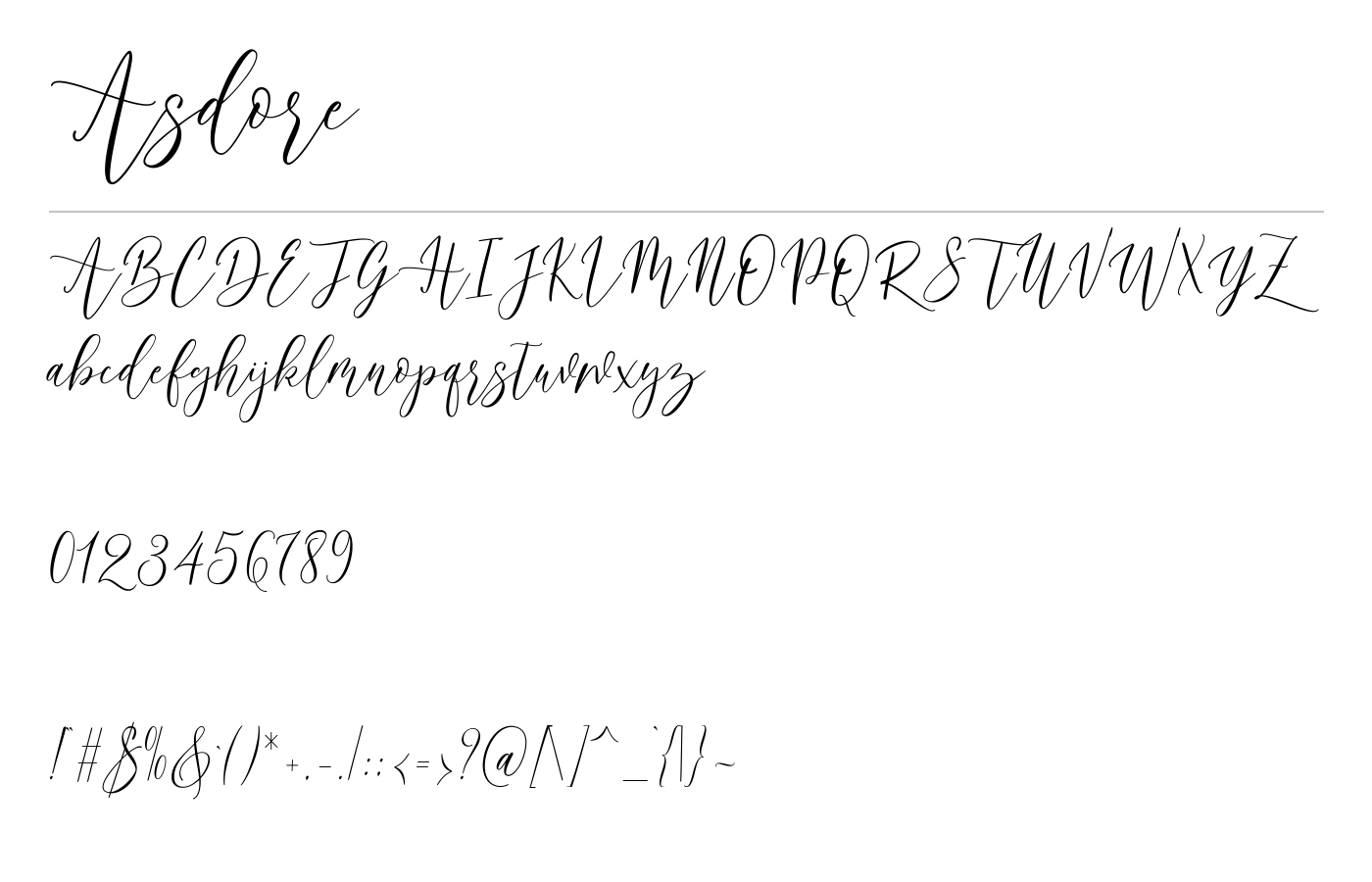
Asdore is a delicate, elegant script font characterized by its slender, flowing strokes and graceful curves. It offers a high x-height with a natural, handwritten feel, making it ideal for sophisticated, romantic, or feminine branding such as wedding invitations, luxury packaging, and stylish editorial headlines. The font’s light weight and refined letterforms bring a sense of charm and modern elegance, perfect for projects that require a touch of class and personality.
Asdore Font
About Asdore Font
| Font family | Asdore Font |
| Designer | moriztype |